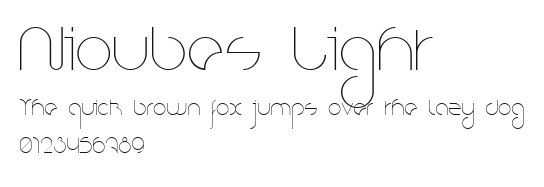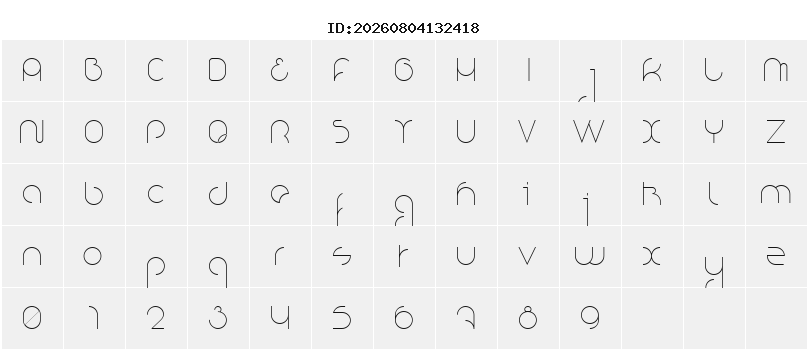
• Font Name: Nioubes Light
• Font Style: Nioubes Light
• Full Font Name: Nioubes Light
• Designer: Beno”t Sjšholm
• Manufacturer: Beno”t Sjšholm
About Nioubes Light.ttf
Nioubes Light.ttf is a modern, elegant sans-serif font designed for ultimate readability and visual harmony. Perfect for branding, headlines, web design, and print materials.